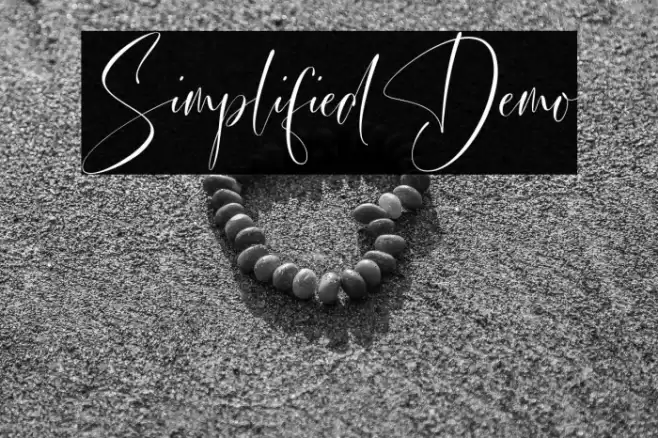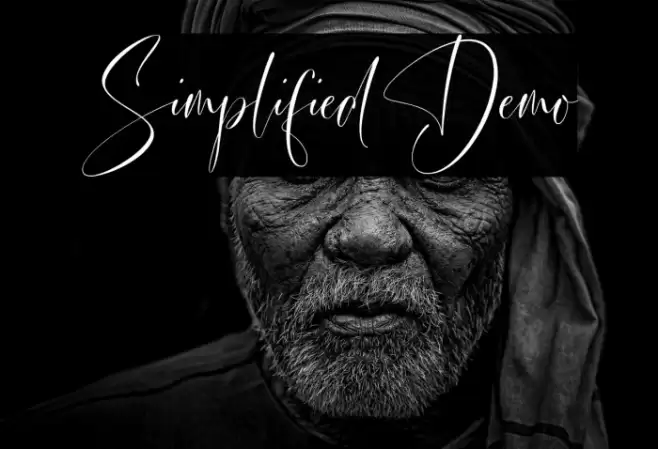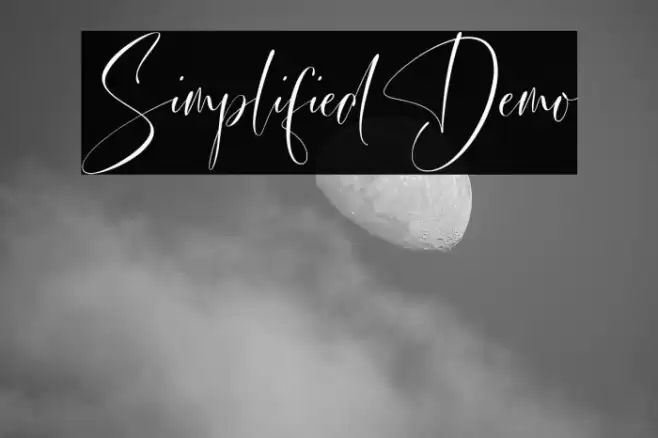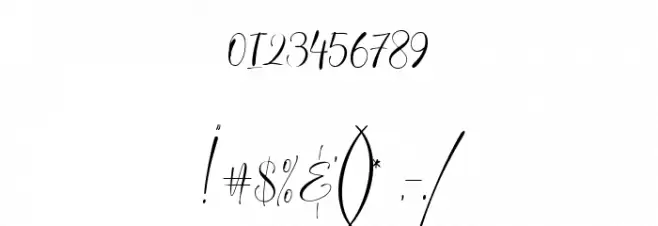
Simplified Demo Font
Simplified Demo Description
This elegant script font features a flowing, cursive style with high contrast between thick and thin strokes. The characters are gracefully elongated, giving a sense of sophistication and fluidity. The uppercase letters are particularly ornate, with sweeping curves and delicate flourishes, while the lowercase letters maintain a consistent, flowing rhythm. The numerals and special characters complement the overall aesthetic, adding to the font's versatility. This font is ideal for projects that require a touch of elegance and refinement.
An elegant, high-contrast script font with flowing, cursive strokes from Regular fonts.
- Font: Simplified Demo
- Proposed Projects: Wedding invitations, luxury branding, elegant packaging, greeting cards, and high-end editorial design.
- Overall Style: Elegant, Sophisticated
- Use Case: Logos, Invitations, Decorative text